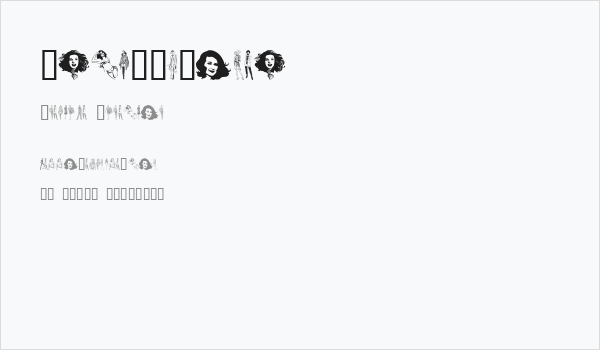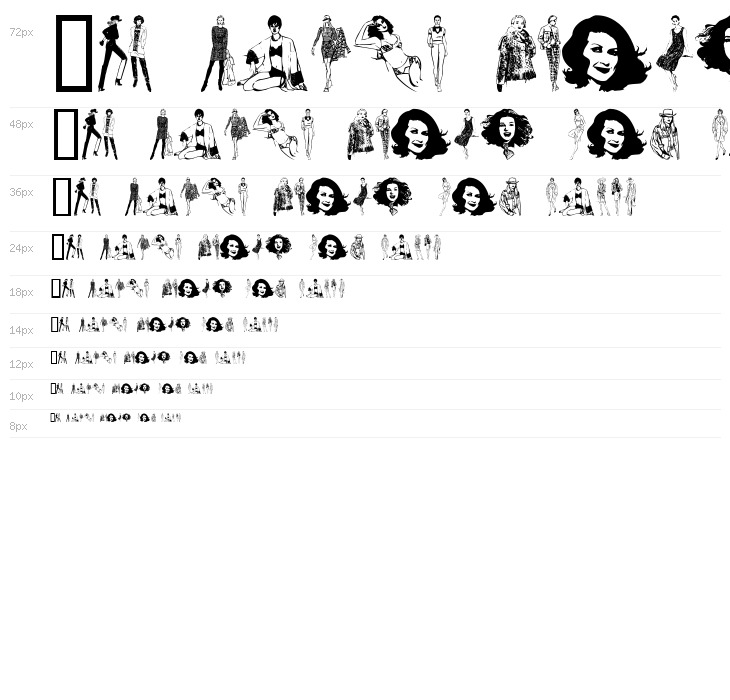
Unca'sWomen Font
Unca'sWomen Description
A decorative display font composed of detailed black-and-white illustrations of women in various fashion poses and styles, evoking a vintage or retro aesthetic. Each character is represented by a unique illustrated figure or portrait, making the set highly stylized and artistic.
Overall StyleVintage, Decorative, Artistic
Use CaseLogos, Headlines, Posters, Editorials
Proposed ProjectsFashion magazines, editorial layouts, posters, branding for women's clothing stores, event invitations, art projects.